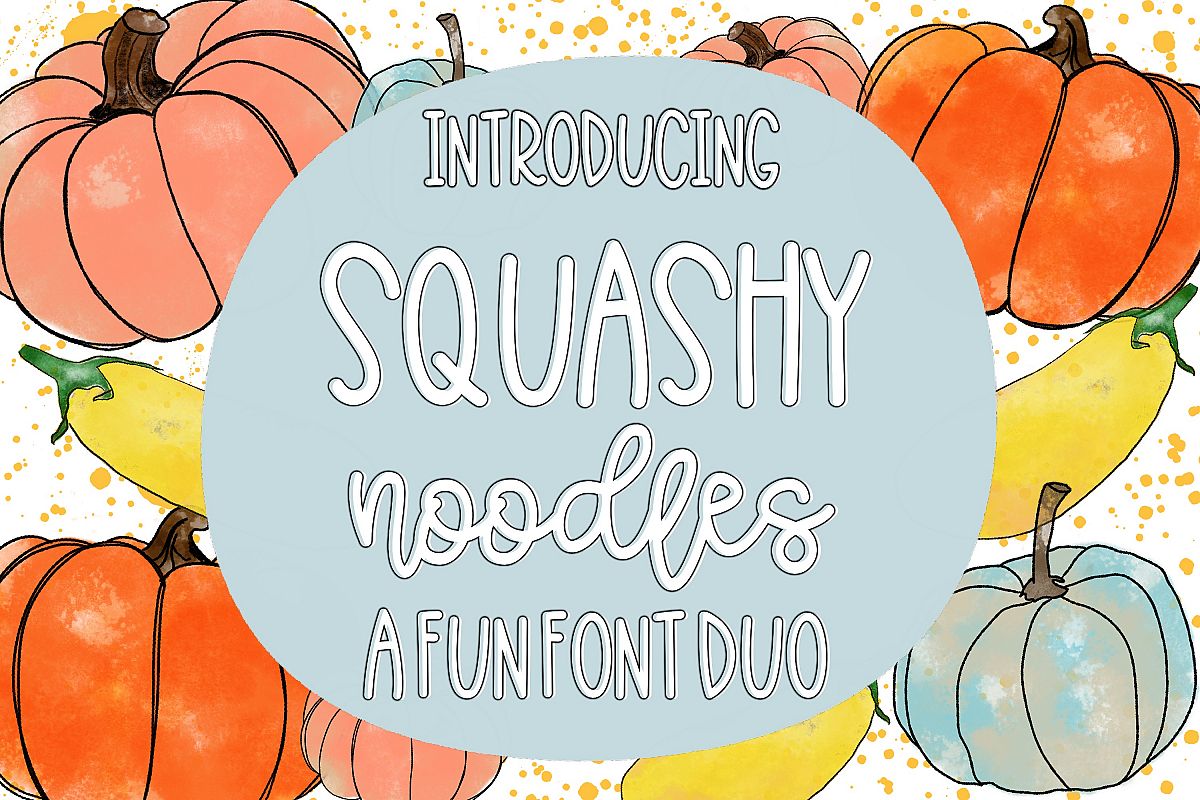
Squashy Noodles - A Fun Font Duo
Introducing “Squashy Noodles” a fun handlettered font duo.
Use all caps for the tall and skinny look, and pair it with all lower case for a beautiful script font.
This duo is great for making your own designs, logos, cards, and more!